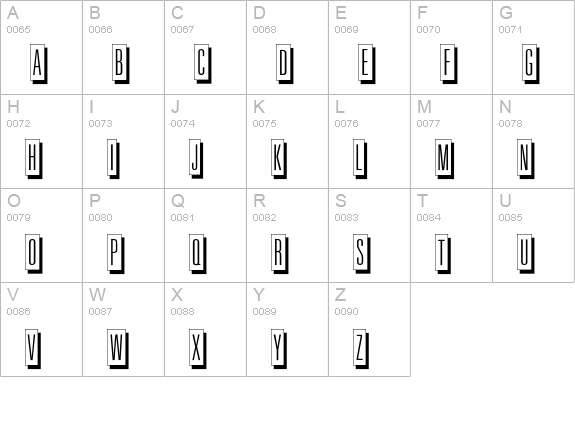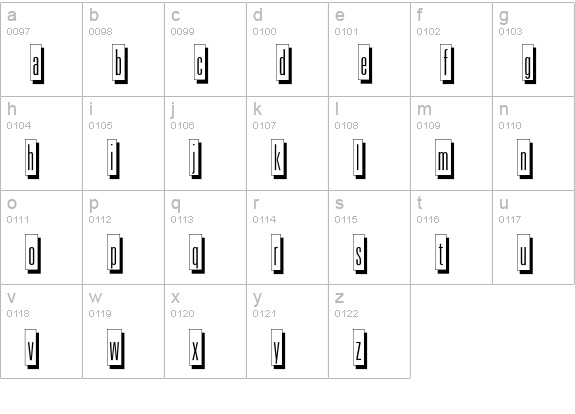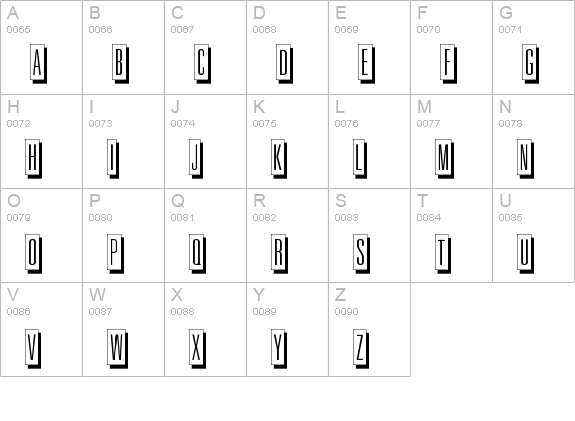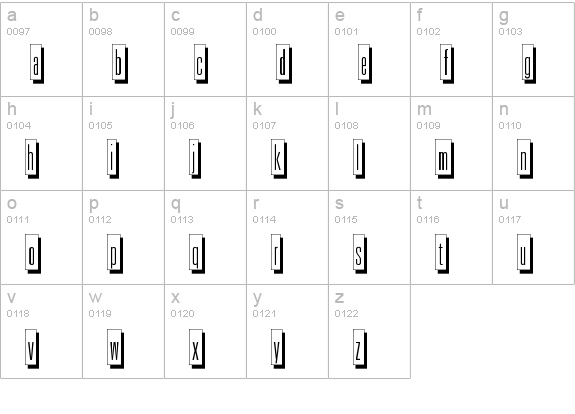
ImageClub Font Details
Introducing ImageClub font, a captivating and versatile typeface that is sure to make a lasting impression. This font is the perfect blend of modernity and elegance, making it an excellent choice for a wide range of design projects. With its clean and distinctive letterforms, ImageClub font adds a touch of sophistication to any design. Whether you're creating a logo, branding materials, or designing a website, this font will effortlessly elevate your work to new heights. One of the best things about ImageClub font is that it is free! That's right, this stunning typeface is freely available to download at FontsMarket.com. This means that you can access and use this font without any limitations or restrictions. It's a fantastic opportunity to enhance your design arsenal with a high-quality font, without breaking the bank. ImageClub font offers a vast array of characters, including uppercase letters, lowercase letters, numbers, and various punctuation marks. This extensive character set ensures that you have all the tools you need to create eye-catching and professional designs. Whether you're a seasoned designer or just starting out, ImageClub font is incredibly user-friendly. Its well-crafted and balanced letterforms make it easy to read, ensuring that your message is conveyed clearly and effectively. So why wait? Download ImageClub font today from FontsMarket.com and unlock a world of design possibilities. Whether you're working on a personal project or a client's brief, this font will undoubtedly add a touch of sophistication and style to your work. Don't miss out on the opportunity to elevate your design projects with this stunning and free font.